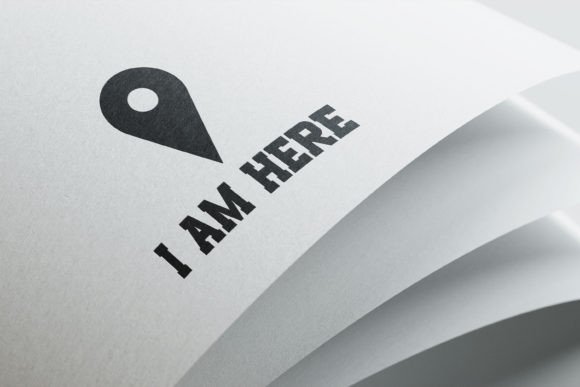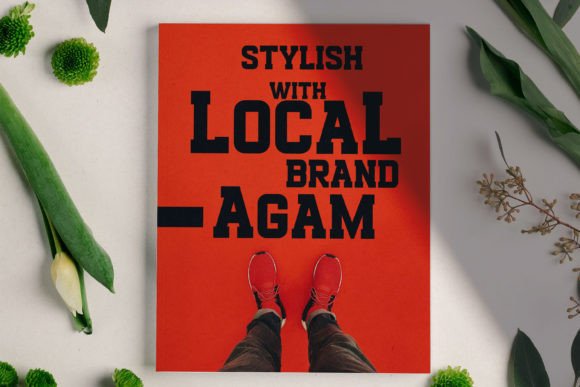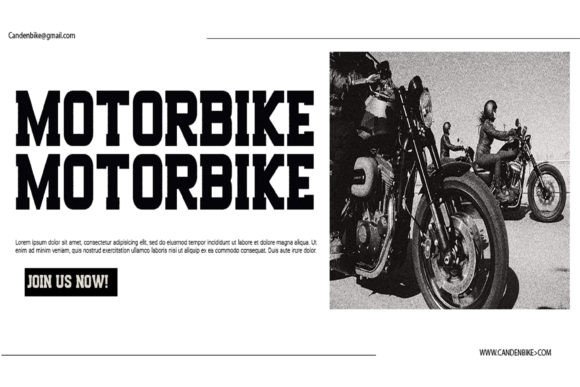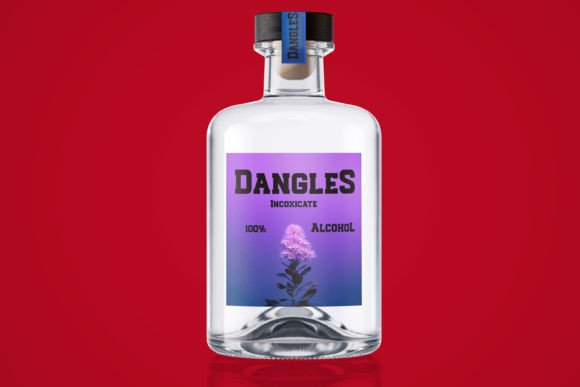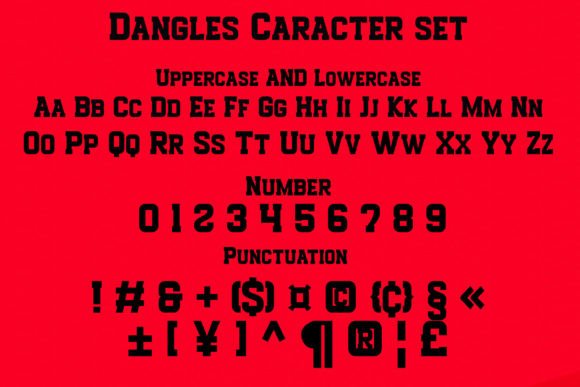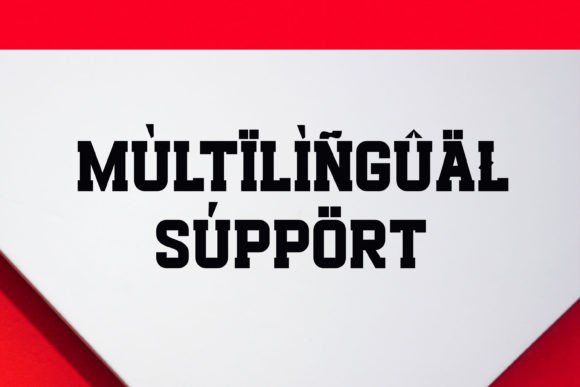
Dangles Font: Elevate Your Design with Modern Serif Elegance
In the world of typography, fonts play a crucial role in conveying the tone and aesthetic of a design. For designers and crafters seeking to add a touch of luxury and sophistication to their projects, Dangles Font is an excellent choice. This modern serif font is packaged in a classy style, offering a wide range of features that make it perfect for various applications.
What is Dangles Font?
Dangles Serif is a modern serif font designed to bring an air of elegance and refinement to your designs. Its classy style is complemented by a wide range of OpenType features, allowing you to access a large selection of alternative letters and ligatures. This means you can choose from various uppercase and lowercase letters to create a unique and luxurious impression.
Key Features of Dangles Font
- Modern Serif Style: Dangles Font boasts a sleek and contemporary serif design that works well in both large and small sizes.
- OpenType Features: With access to OpenType features, you can explore a vast array of alternative letters and ligatures, giving you the flexibility to customize your text.
- Luxurious and Elegant Appearance: The font’s design ensures a sophisticated look that’s perfect for projects requiring a high-end feel.
- Versatility: Dangles Font is highly versatile, making it suitable for a wide range of applications, from branding and logo design to packaging and editorial projects.
Use Cases for Dangles Font
Dangles Font’s versatility makes it an excellent choice for various design projects. Here are some of the ideal use cases:
- Branding Projects: Establish your brand’s identity with a sophisticated and elegant font that communicates luxury and style.
- Logo Design: Create memorable logos that stand out with the unique and classy look of Dangles Font.
- Clothing Branding: Elevate your fashion brand’s visual identity with a font that exudes elegance and refinement.
- Packaging: Add a touch of luxury to your product packaging and make it stand out on store shelves.
- Magazine Titles and Headlines: Use Dangles Font to create striking magazine titles and headlines that capture attention.
- Advertisements: Enhance your ad designs with a sophisticated font that communicates style and elegance.
- T-Shirts and Apparel: Design eye-catching apparel with a font that offers both style and readability.
- Postcards and Editorials: Add a classy touch to your postcards and editorial designs with Dangles Font.
Why Choose Dangles Font?
Dangles Font stands out from other serif fonts due to its unique blend of modernity and elegance. Its extensive feature set, including OpenType features, provides designers with the tools needed to create customized and distinctive text. Moreover, its versatility ensures that it can be used across various projects, making it a valuable addition to any designer’s font library.
Tips for Using Dangles Font Effectively
- Experiment with OpenType Features: Take full advantage of the font’s OpenType features to create unique and customized text.
- Pair with Complementary Fonts: Combine Dangles Font with other fonts that complement its style to create visually appealing designs.
- Consider Font Size: While Dangles Font works well in both large and small sizes, ensure that the chosen font size aligns with the project’s requirements.
- Pay Attention to Kerning and Spacing: Adjust kerning and spacing to optimize the readability and aesthetic of your text.
Dangles Font is a modern serif font that offers a perfect blend of elegance, luxury, and versatility. Its extensive features, including OpenType capabilities, make it an excellent choice for designers and crafters looking to elevate their projects. Whether you’re working on branding, logo design, packaging, or editorial projects, Dangles Font is sure to add a touch of sophistication and style.